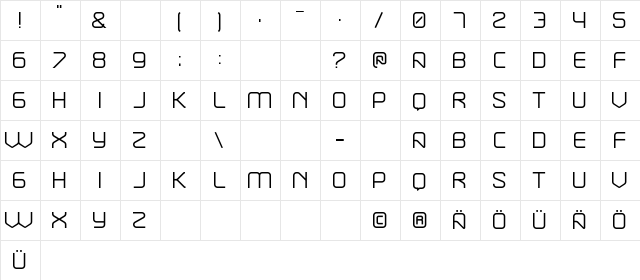
Break Regular
Design Context for Break Typeface
Break is a composed and adaptable typeface that performs quietly and consistently across a wide range of design contexts.
Pro Tip: Pair Break with a font of contrasting weight or personality to build a more expressive typographic hierarchy.